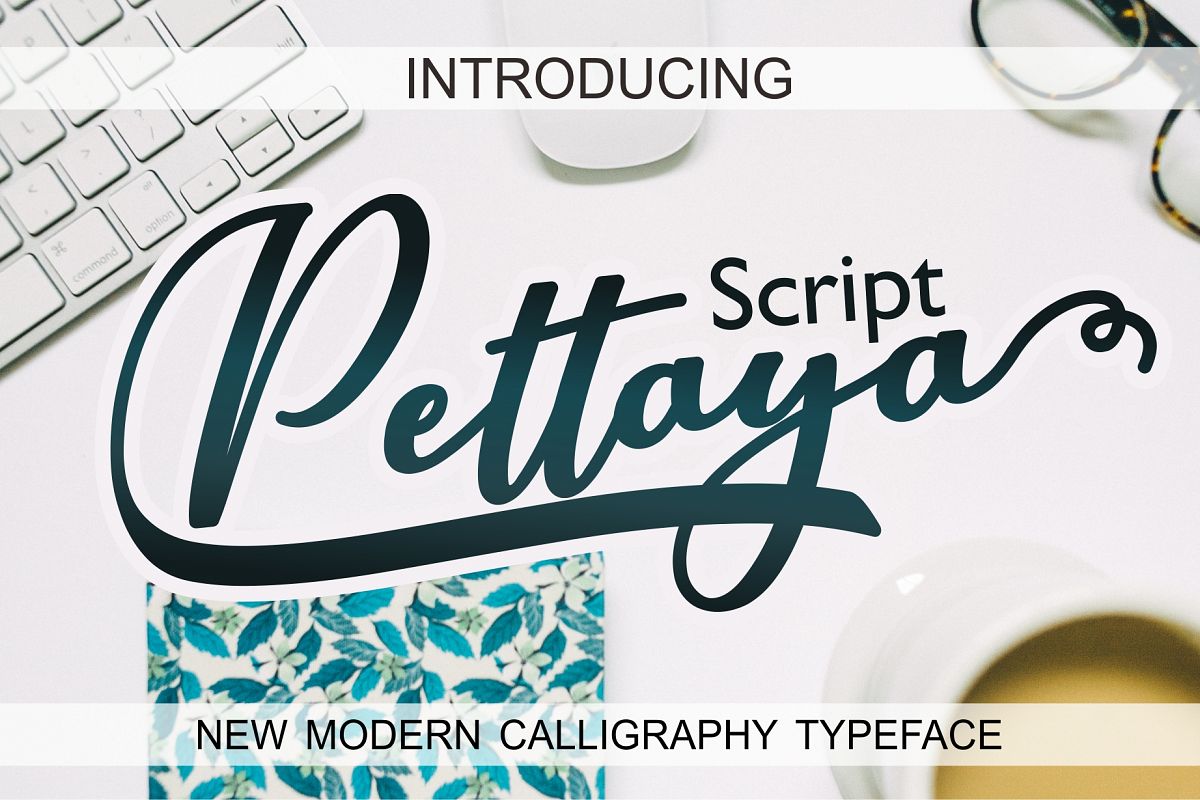
Pettaya Script
Pettaya Script is a beautiful font. It is suitable for book covers, stationery, greeting cards, posters. Also with their help, you can create beautiful logo or postcards and more!